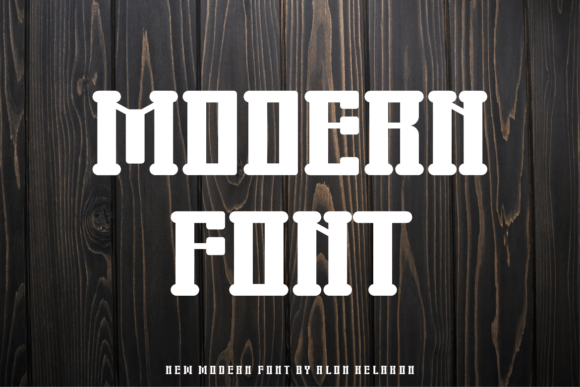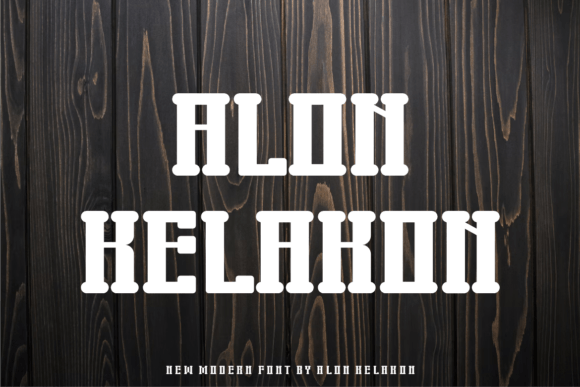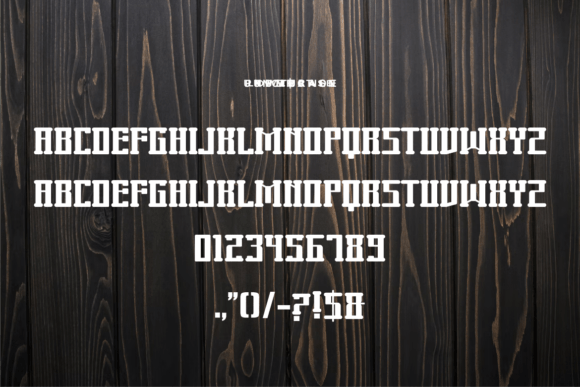
Introduction to Magicgem Font
Do you remember that moment when you finally found the perfect font to match your creative vision? For designers, it’s like stumbling upon a hidden treasure – it elevates your project and makes it truly shine. Today, we’re excited to introduce you to the Magicgem Font, a beautifully crafted serif font that’s ready to take your designs to the next level.
| 👤 Author | alonkelakon |
Whether you’re working on a movie title, album cover, or logo, Magicgem Font is the perfect design resource to add a touch of sophistication and elegance. Its nicely rounded letters are perfect for labeling, clothing, and even movie screens. With its transparent background and high-quality design, this font is a valuable addition to any creative project. And the best part? It’s available for free download, making it accessible to designers of all levels.
Key Features of Magicgem Font
- High-quality, unique design suitable for creative projects requiring a touch of magic.
- Features a transparent background, making it easy to overlay on images or use in design projects.
- Designed with a high-resolution display in mind, suitable for use in print and digital media.
- Includes a range of characters, including uppercase and lowercase letters, numbers, and special characters.
Honest Review: Magicgem Font
As a designer, I’ve come across a plethora of fonts that claim to be the perfect addition to any creative project. Recently, I stumbled upon the Magicgem Font, and I’m excited to share my thoughts on this design resource.
- ✨ The Magicgem Font has a high quality and elegant design that can elevate any text-based element in a creative project.
- ✨ The transparent background feature allows for seamless integration with various design elements, giving designers more flexibility in their projects.
- ⚠️ The font may not be suitable for larger text sizes, as it can become difficult to read.
- ⚠️ The font’s design may not be ideal for projects that require a more modern or minimalist aesthetic.
Overall, I’m impressed with the Magicgem Font’s unique design and versatility. While it may have some limitations, it’s an excellent addition to any designer’s toolkit, especially for creative projects that require a touch of elegance and sophistication.
The Magicgem Font is a free download, high-quality design resource perfect for creative projects. Its unique and elegant style makes it ideal for various applications, from digital to print media.
Tips for Getting the Most Out of Magicgem Font
Experiment with different font sizes, colors, and styles to achieve the desired effect. Use the Magicgem Font in combination with other design elements, such as images and graphics, to create a visually appealing design.
The Magicgem Font is suitable for various creative projects, including wedding invitations, business cards, and social media graphics. Its elegant style makes it perfect for luxury brands and high-end designs.
Pacifico compares to Magicgem Font in terms of its high-quality design and transparent background. However, Pacifico has a more elegant and sophisticated feel, making it ideal for formal or luxury brands.